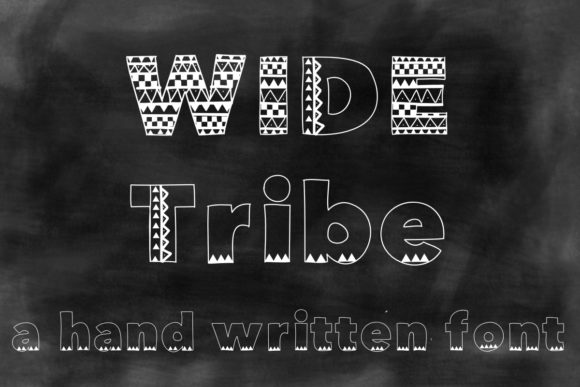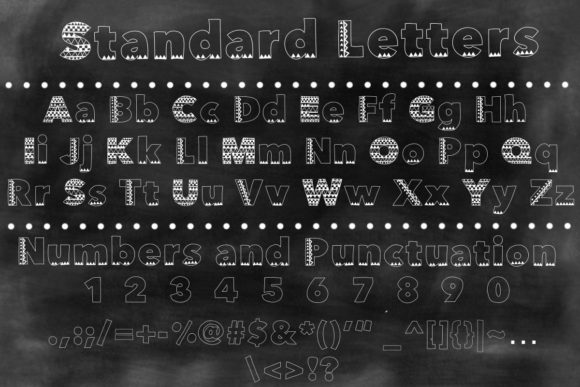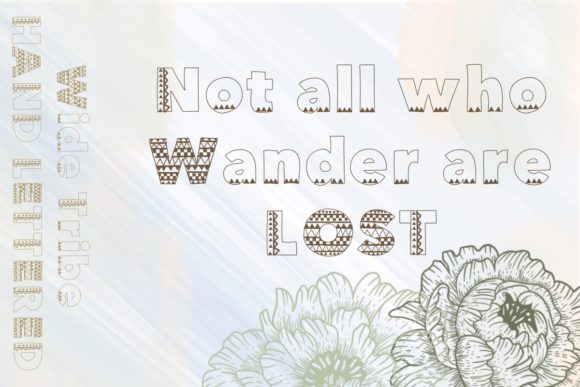
HomeScript FontsWide Tribe Font Script Fonts Wide Tribe Font FacebookXPinterestWhatsApp Wide Tribe Font Poster 2 Wide Tribe Font Poster 3 About Wide Tribe Font Wide Tribe is a chunky tribal-inspired font, perfect for adventure quotes or any kids-themed craft! DOWNLOAD ON CREATIVE FABRICAThis font is sold and delivered by Creative Fabrica. Font Canyon may earn a commission if you buy through this link. People also explored Guppy Font Woody Font Play Sound Font Yerana Font Ornaments Font Blackswan Monoline Signature Font Manoek Hideung Font Santiago Font Crastel Font 358 0 TagsWide Tribe Font Previous articleAmanda FontNext articleRahayuX Font LEAVE A REPLY Cancel reply Comment: Please enter your comment! Name:* Please enter your name here Email:* You have entered an incorrect email address! Please enter your email address here Website: Save my name, email, and website in this browser for the next time I comment. Personal Use Free Girl Personal Use Free Read more about this font Zero Hour Personal Use Free Read more about this font Arnitta Callina Personal Use Free Read more about this font Angola Beach Personal Use Free Read more about this font BLOG Transform Your Website: Elevate Your Typography with 7 Best Web Font Generators Are you ready to transform your website's typography from ordinary to extraordinary? Great! Today, we're diving into the world of web font generators, which... Elegant Wedding Invitation Fonts – Handwritten & Script Fonts Free Fonts Risk: Why Free Fonts Can Be Dangerous for Designers Modern Sans-Serif Fonts That Brands Love in 2025